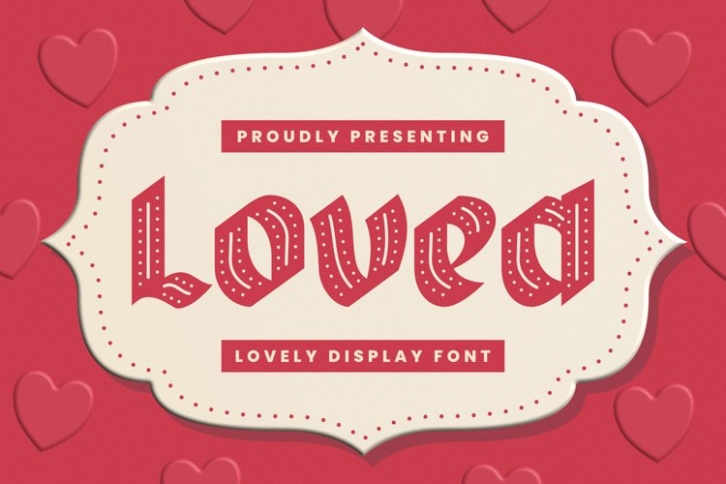
Loved is a beautiful font that was designed by plusstore. It's a great choice for designers and creatives who need such a font. It was released on October 24, 2021 and the file size is 6.48 MB. Loved may give a more youthful, expressive and casual look to your project. It is a very beautiful, refined, elegant, and high-quality font.